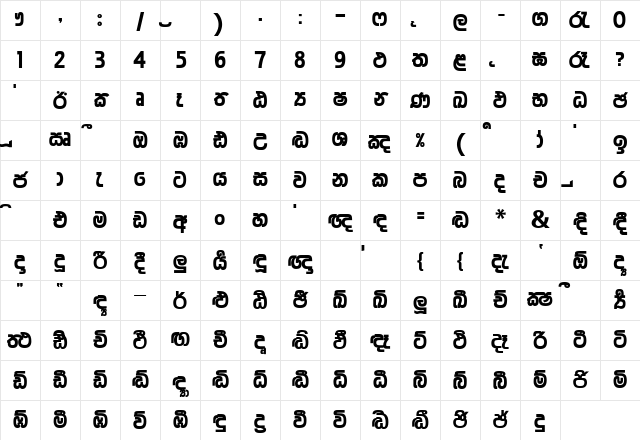
Ananda UltraBold
Style: UltraBold
Ananda Family
Complete Ananda UltraBold glyph index. Displaying only characters natively supported by Ananda UltraBold font.
Design Context for Ananda
Ananda is a composed and adaptable typeface that performs quietly and consistently across a wide range of design contexts. Its bold stroke weight gives it real presence on the page.